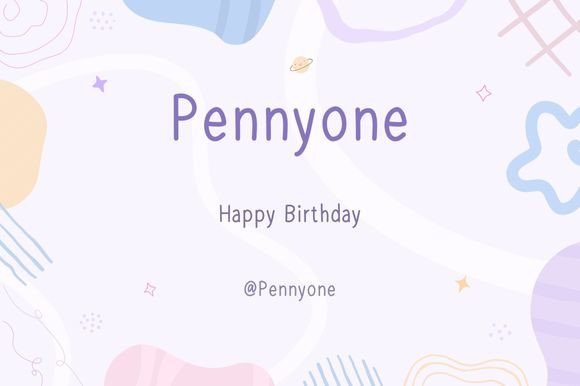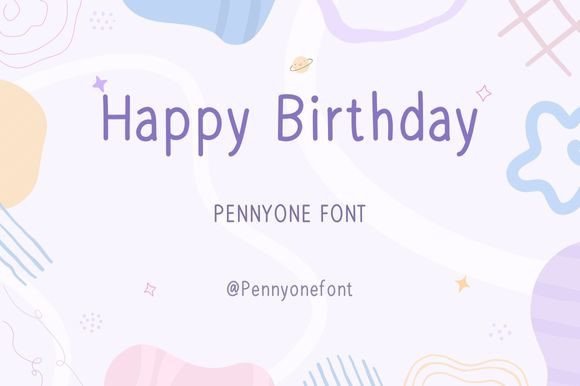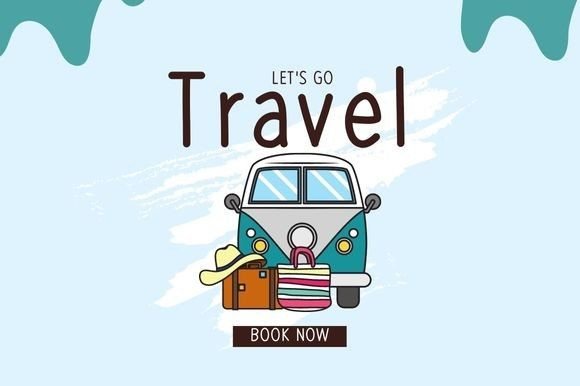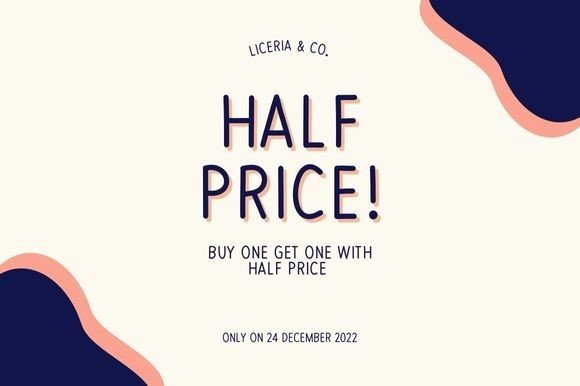
Pennyone Font
About Pennyone Font
**Pennyone** is a cute and delicate script font that radiates elegance and class. Crafted with precision, this font is tailored for individuals seeking a refined and refreshing appearance in their designs.
The font’s delicate script style adds a touch of sophistication to your projects. Its clean and legible characters make it versatile and suitable for a variety of applications, such as branding, logos, invitations, greeting cards, product packaging, and more.
One of the standout qualities of **Pennyone** is its ability to infuse an air of grace and charm into your designs. Its finely detailed characters are designed to create visually appealing and aesthetically pleasing compositions, making it a valuable asset for your creative endeavors.
In conclusion, **Pennyone** is a cute and delicate script font that brings elegance and class to your designs. Whether you’re working on personal or professional projects, this font can help you achieve a refreshing and refined look. With **Pennyone** in your font collection, you have a versatile tool for crafting visually appealing and sophisticated designs that leave a lasting impression on your audience.